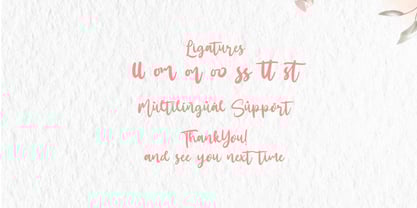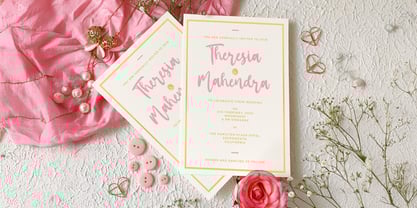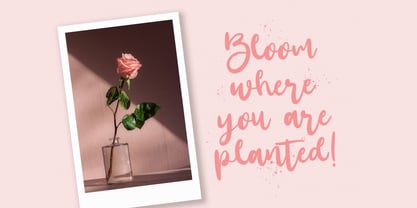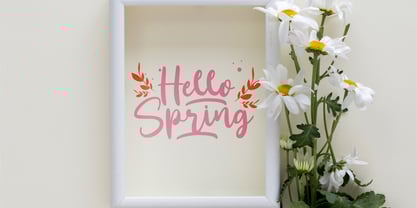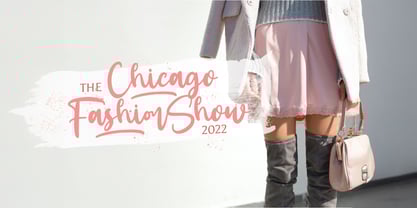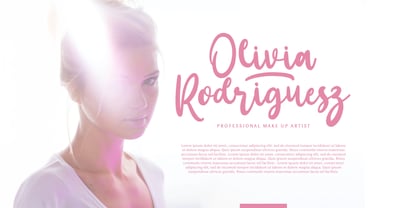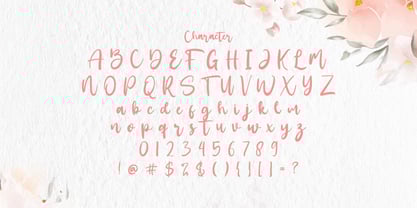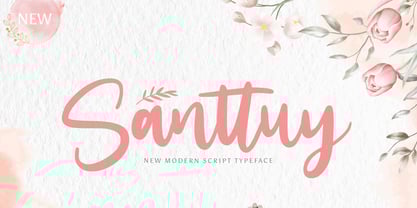
Die Schriftfamilie Santtuy wurde von Virgiawan Listanto entworfen und von Stringlabs Creative Studio veröffentlicht. Santtuy enthält 1 Stile.
Santtuy is a laid-back and stylish handwritten font that captures the charm of casual handwriting with a modern twist. Its smooth strokes and natural rhythm make it perfect for designs that need a personal, approachable touch without losing elegance.
Designer: Virgiawan Listanto
Herausgeber: Stringlabs Creative Studio
Foundry: Stringlabs Creative Studio